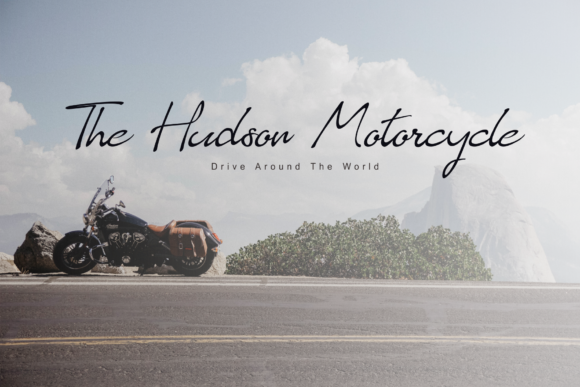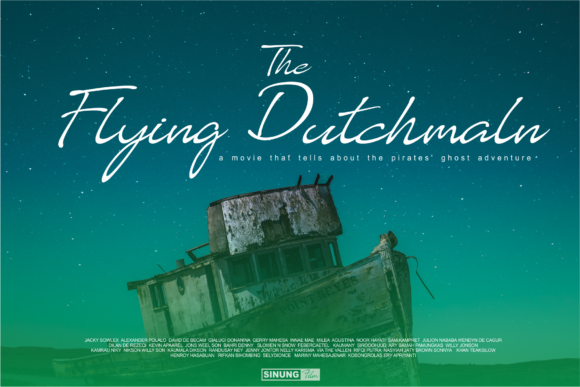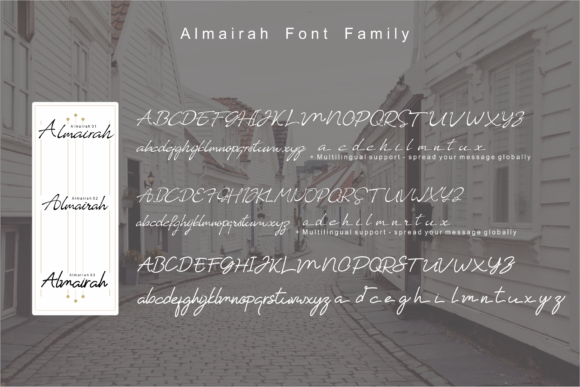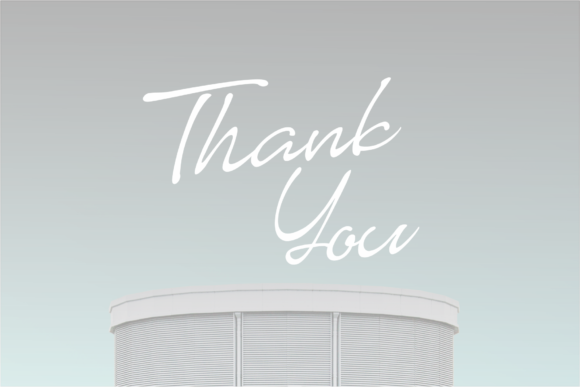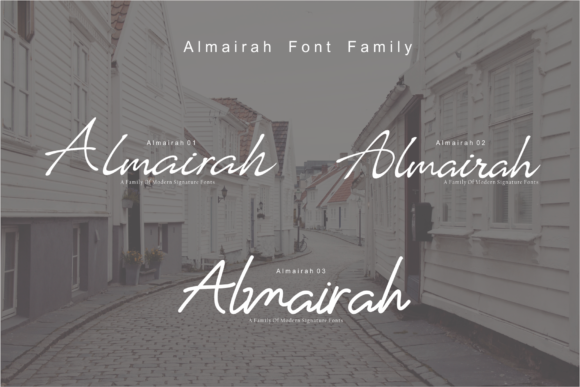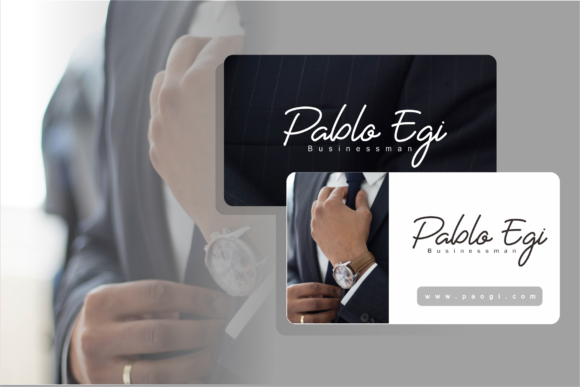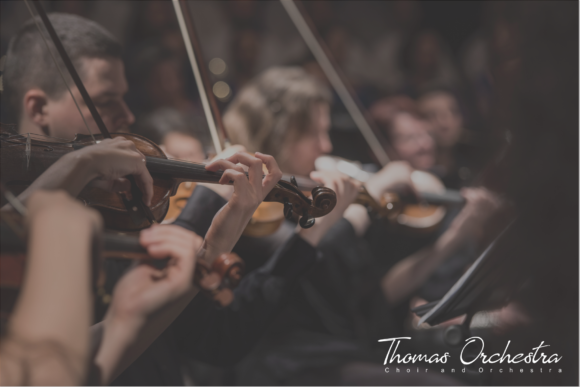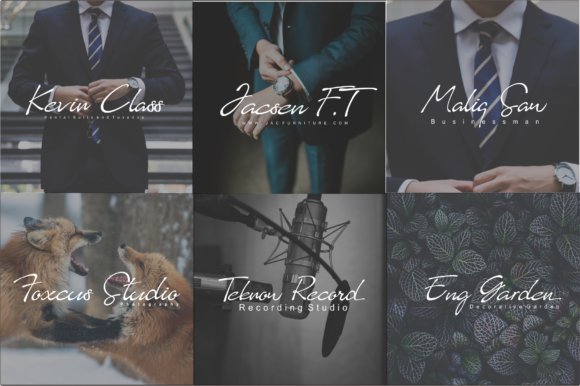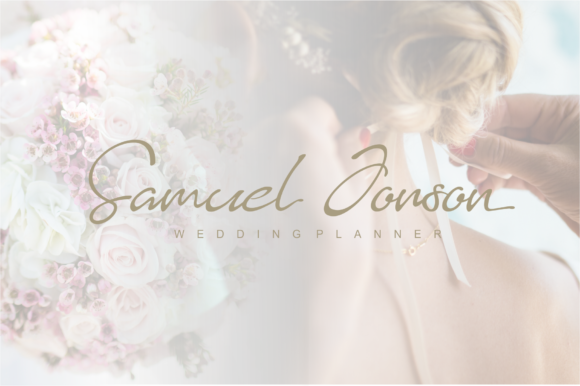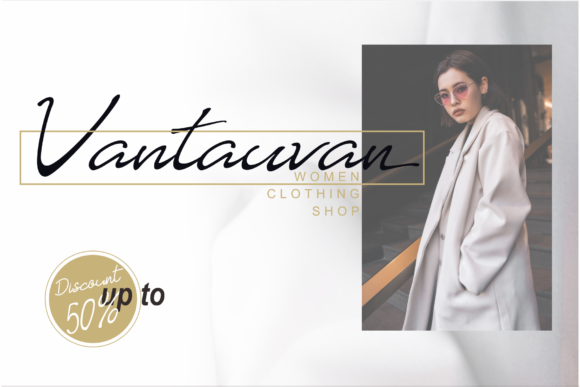
Almairah Font
About Almairah Font
Almairah is an exquisite and relaxed signature font, useful for adding some elegance to your designs. This font is stylish and easy to use, and adds a fashionable flair to your works.